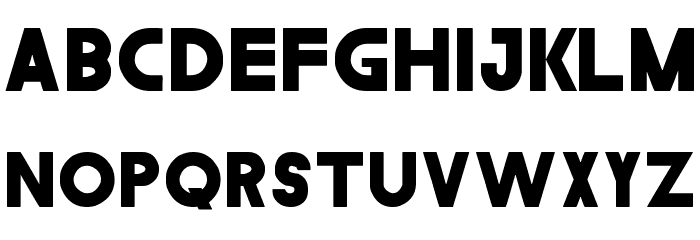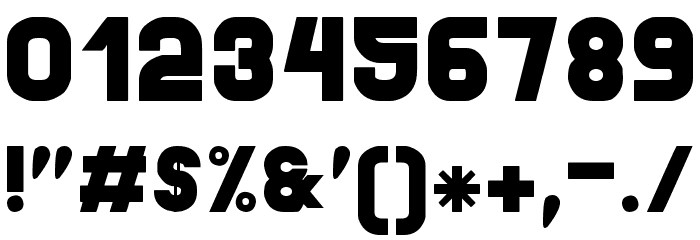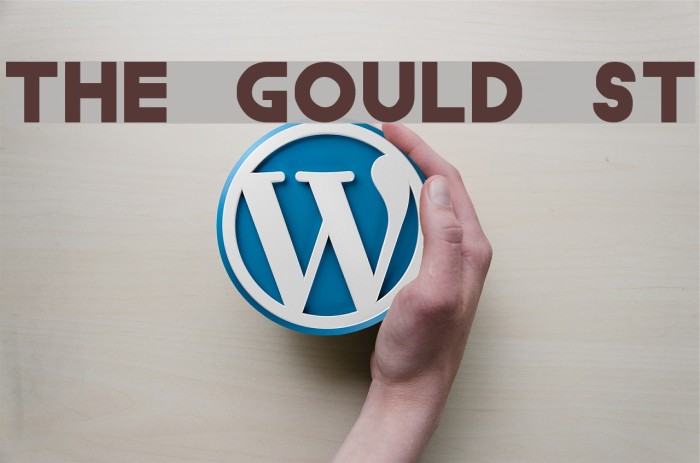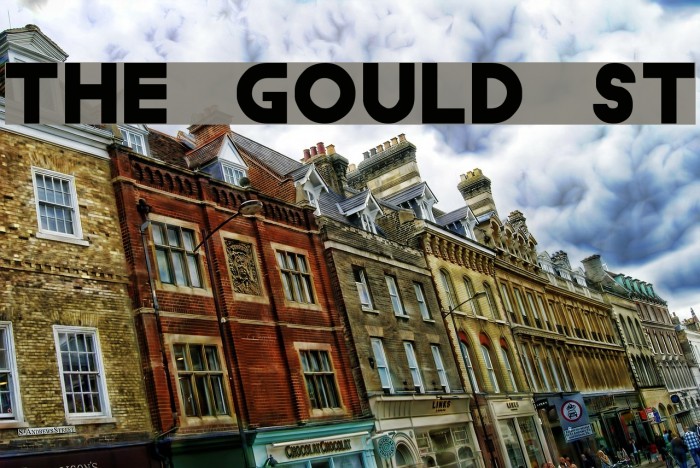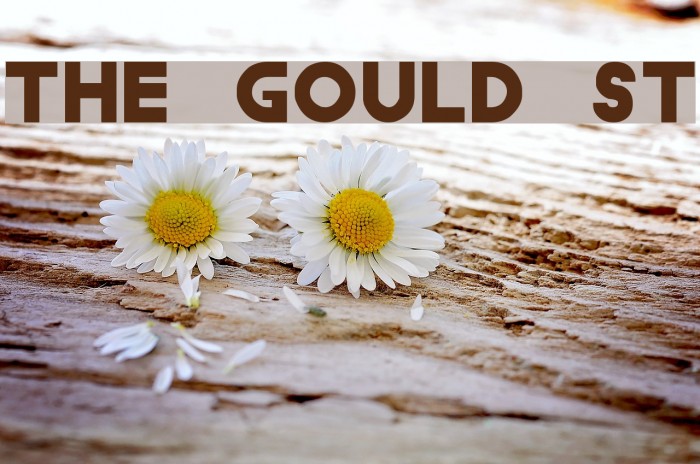
The Gould St Font
This font features bold, geometric letterforms with a strong presence. The uppercase letters are uniform in height and width, creating a cohesive and structured appearance. The numbers are equally bold, maintaining the geometric style, which ensures readability and impact. Special characters are designed with the same boldness, integrating seamlessly with the rest of the font. The overall design is modern and assertive, making it suitable for attention-grabbing applications.
A bold, geometric font with a modern and assertive style.
- Proposed Projects: Ideal for branding, headlines, posters, and any design requiring a strong visual impact.